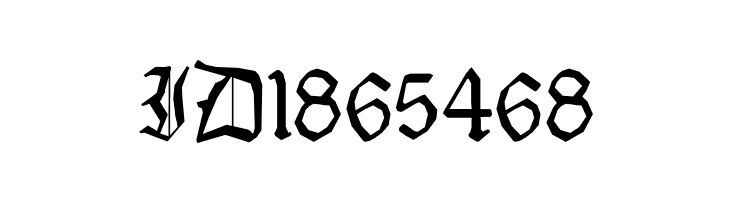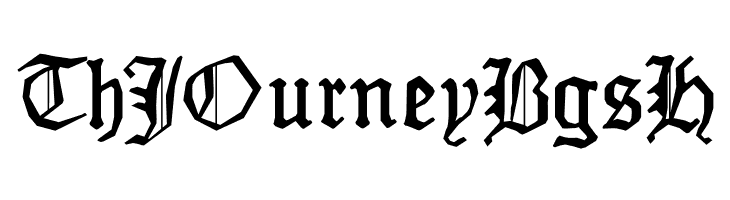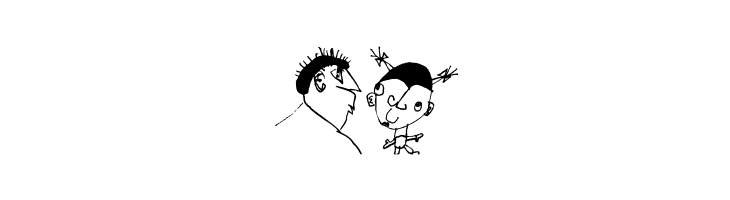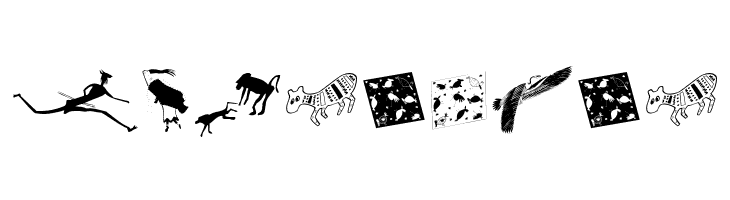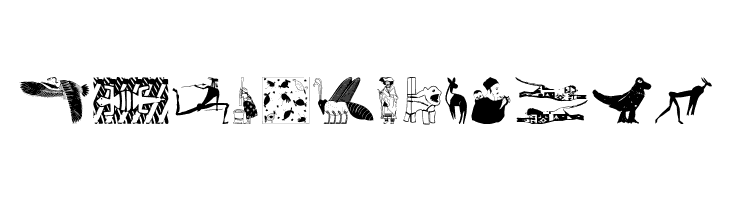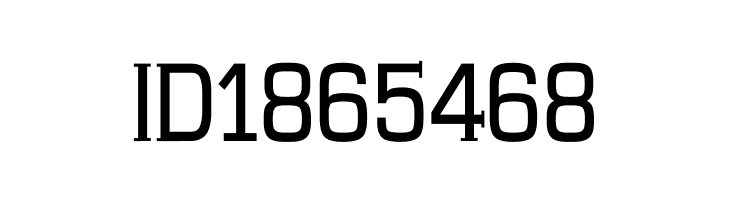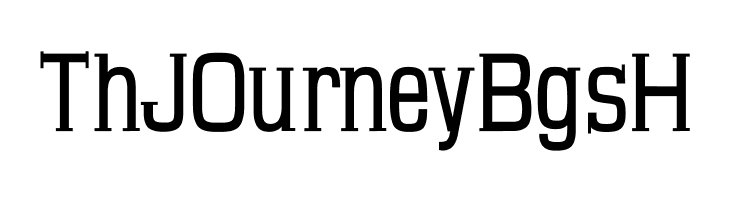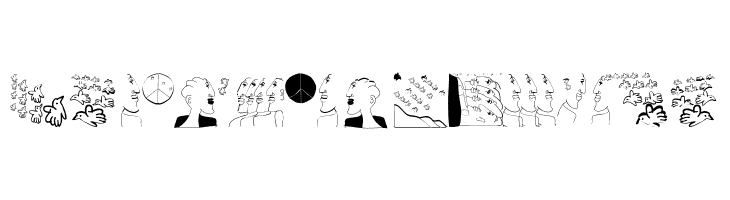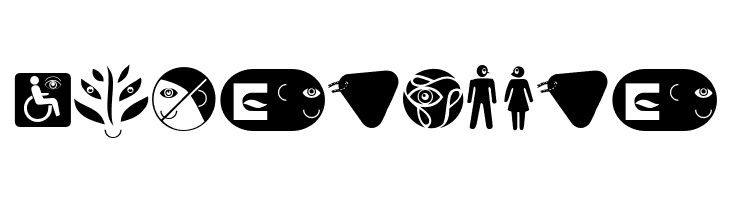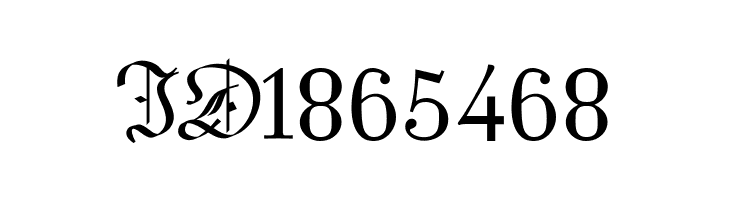
• MonAmourFraktur2
A bold, ornate blackletter font with a medieval aesthetic.
• VectorFaces
Hand-drawn, illustrative font featuring quirky faces and figures.
• AfricanQueens
Pictogram font featuring African tribal motifs and animals.
• MKSerifTallXMedium
A tall, elegant serif font with medium weight and subtle serifs.
• FontBetaOne
Expressive, hand-drawn illustrative font with cartoon faces and abstract elements.
• LogosLogo
A pictogram-based decorative display font with logo-like glyphs.
• MonAmourAprilFraktur
A decorative blackletter font with intricate details and a medieval aesthetic.
• MonAmourCapsAprilFraktur
An ornate blackletter font with characters encased in circular borders.
• NewCaveDrawings
An artistic font inspired by ancient cave drawings, featuring animal-like characters.
• SurrealisM
Surreal, illustrated display font with narrative scenes for each character.